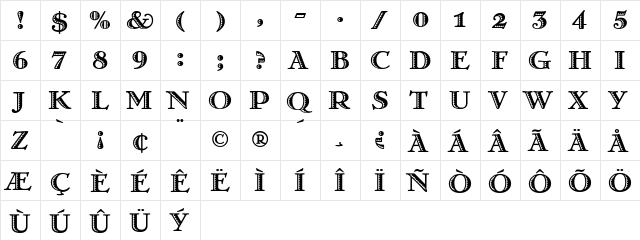
Greco Adornado
Design Context for Greco Typeface
Greco is a composed and adaptable typeface that performs quietly and consistently across a wide range of design contexts.